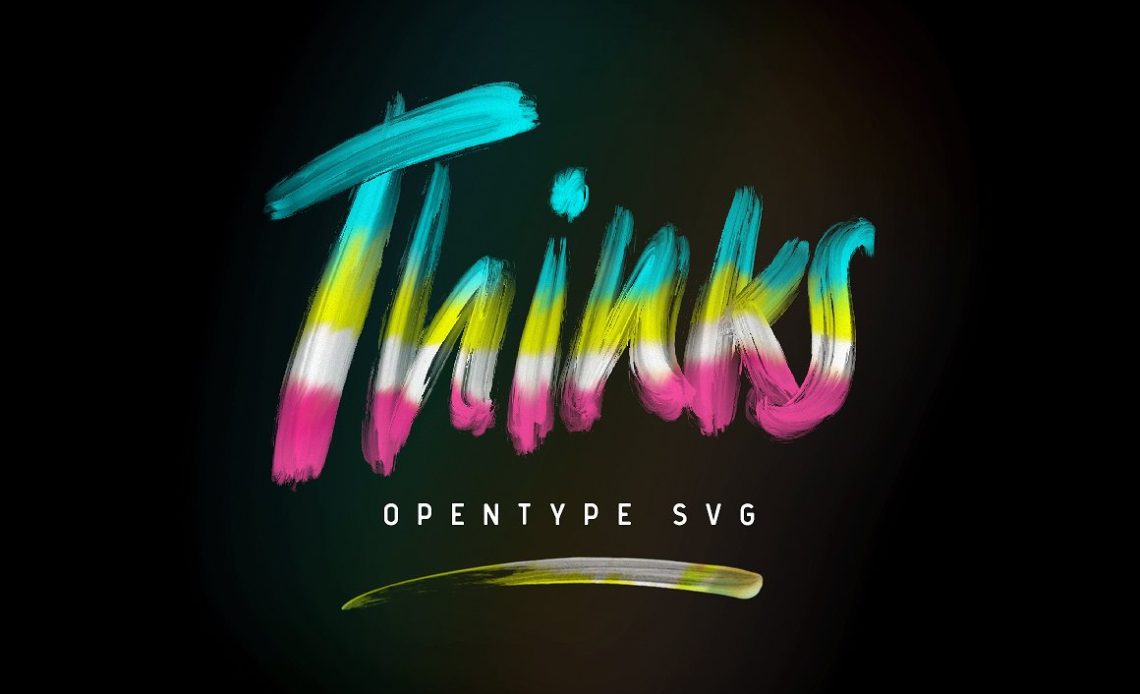
Introducing Thinks Opentype Font - a colorful and experimental font family created by bloomxxvi. Thinks type is not your typical font, but rather an innovative and hyper-realistic font that takes your designs to the next level. This font uses high-resolution brush stroke images with incredible definition, giving it a unique look and feel that is sure to captivate customers and designers alike.
With Thinks Opentype Font, you can add a touch of creativity and emotion to your projects. Whether you are creating an invitation, logo, or advertisement, this font will help you convey your message in a unique and captivating way. It's perfect for those who want to stand out and make an impact with their designs.
One of the best things about Thinks Opentype Font is its versatility. It's a font that can be used for a wide range of projects, from playful and whimsical designs to more serious and professional ones. This font family truly has something for everyone.
If you're looking for a font that truly looks gorgeous and grabs attention, then Thinks Opentype Font is the perfect choice for you. Its hyper-realistic look is unlike anything you've seen before, and it's sure to leave a lasting impression on anyone who sees it.
In summary, Thinks Opentype Font is an innovative and eye-catching font family that will elevate your designs to the next level. Its high-resolution brush stroke images and unique look and feel make it a must-have for any designer or creative individual. Download Thinks Opentype Font today and see for yourself why it's quickly becoming a favorite among designers everywhere.